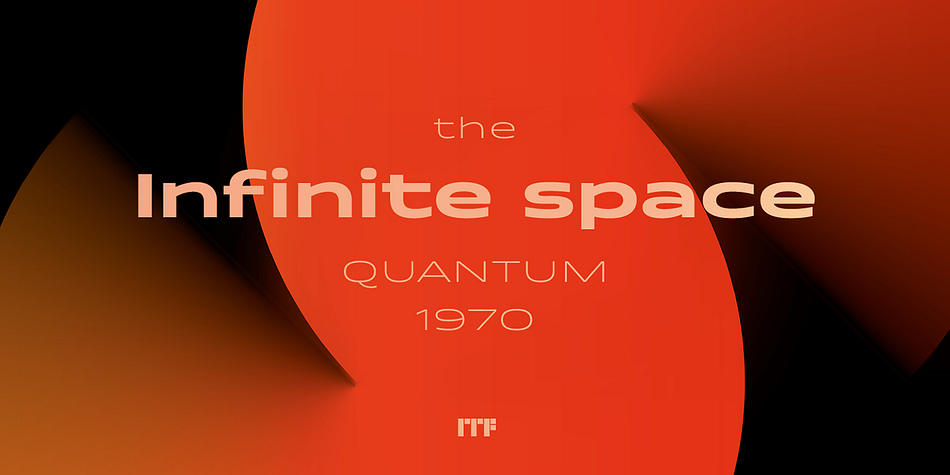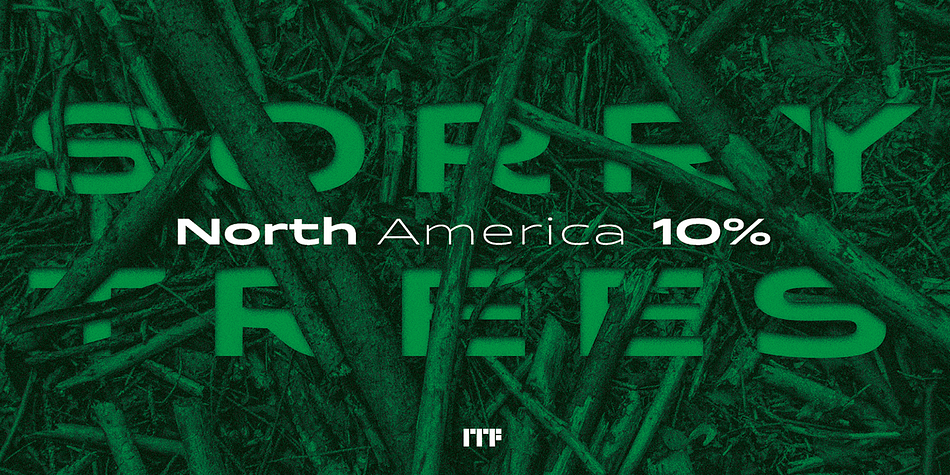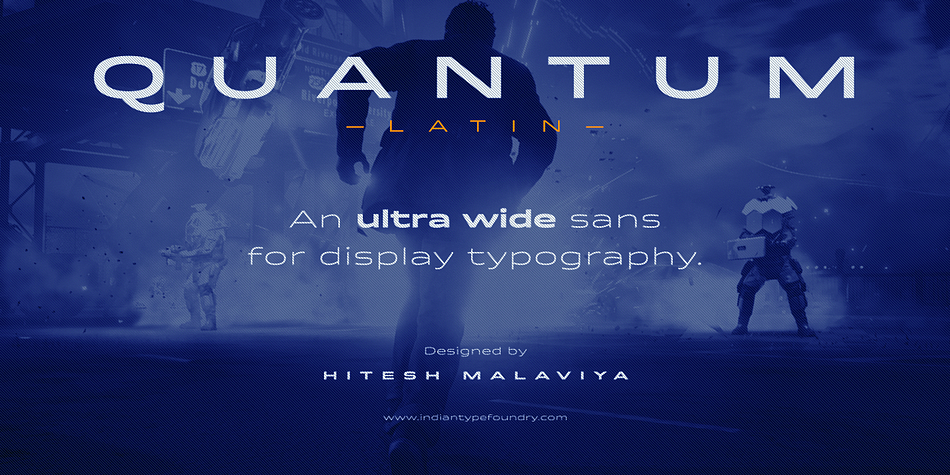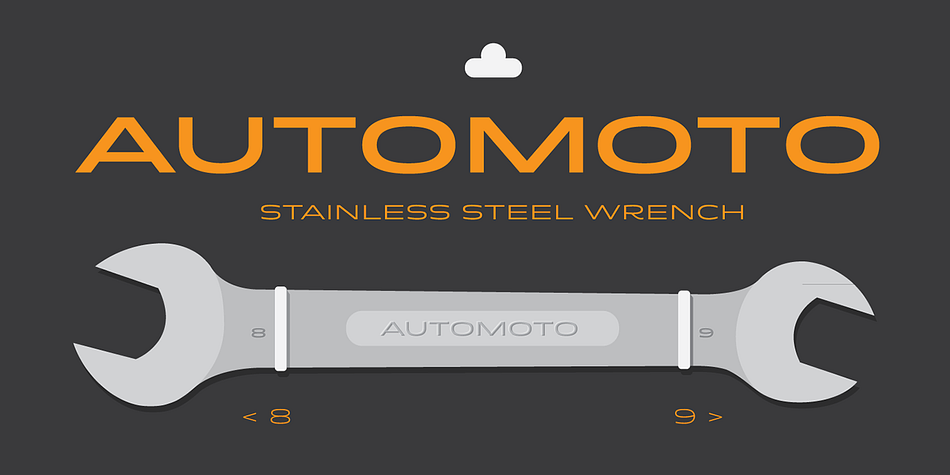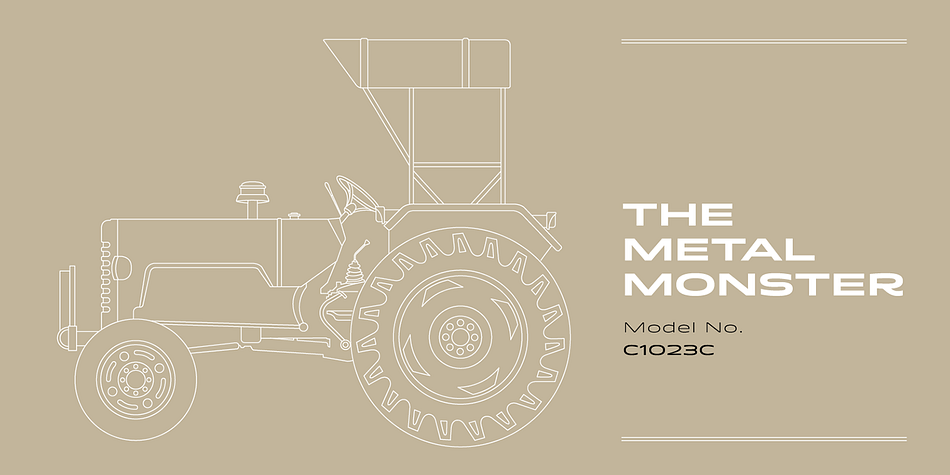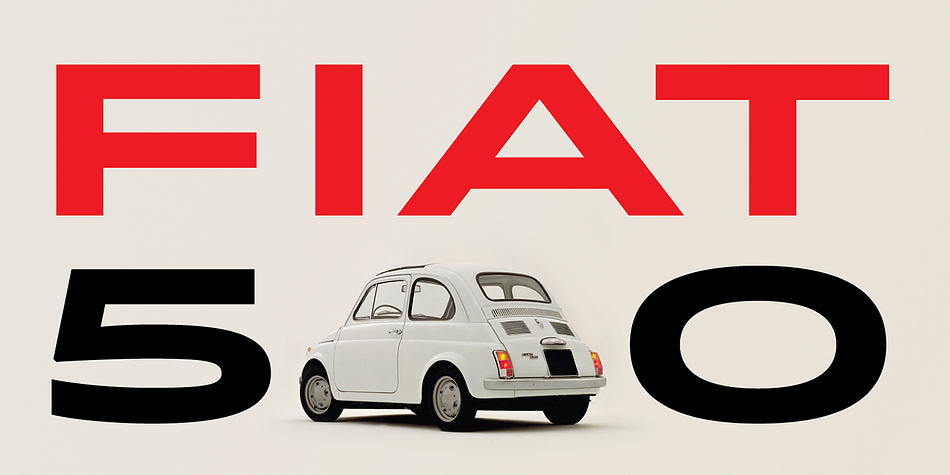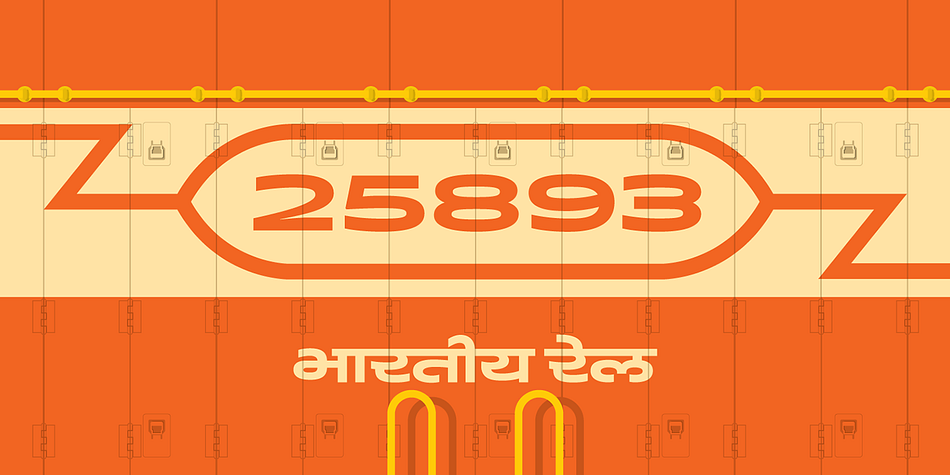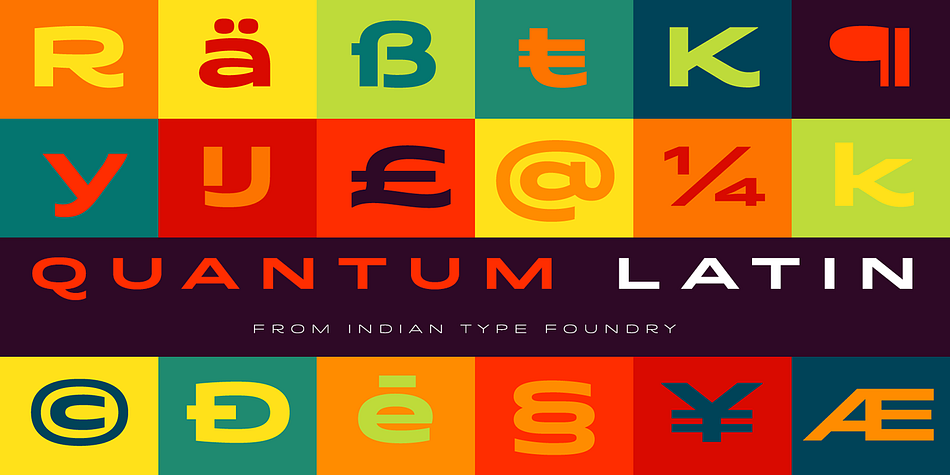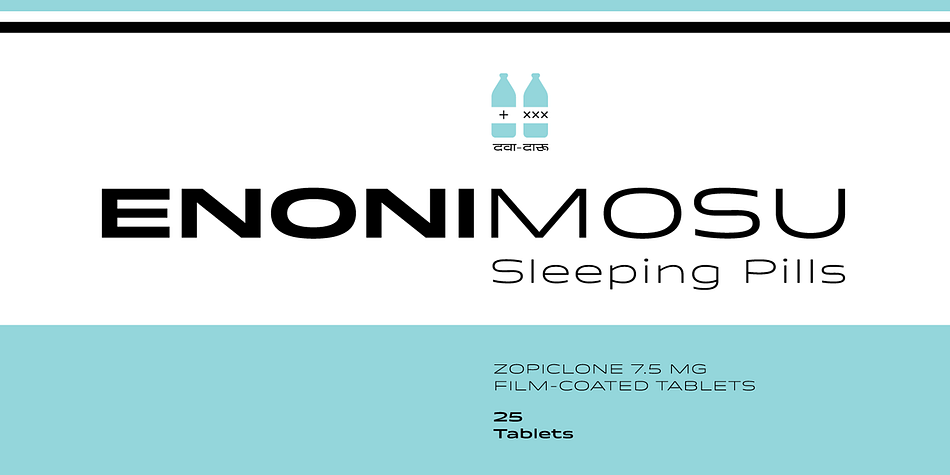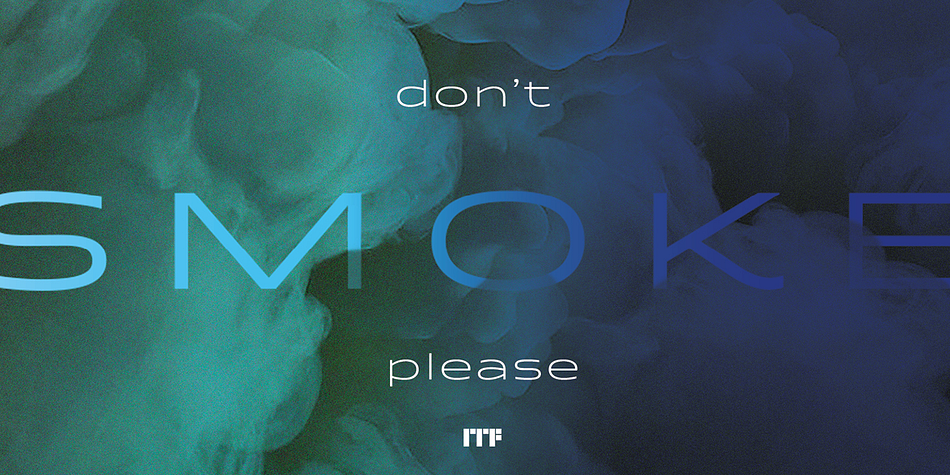
Designed by Hitesh Malaviya, Quantum is a display sans font family. This typeface has five styles and was published by Indian Type Foundry.
A very friendly-looking sans, Quantum is Hitesh Malaviya’s first published typeface for the Latin-script. Its five styles are very, very wide, but the letterforms do not look too technical. Stroke endings are vertical, like in a humanist sans. Don’t overlook the tails on ‘K,’ ‘Q,’ ‘R,’ and ‘k!’